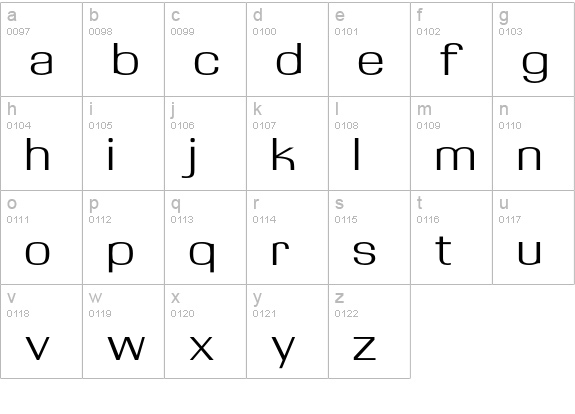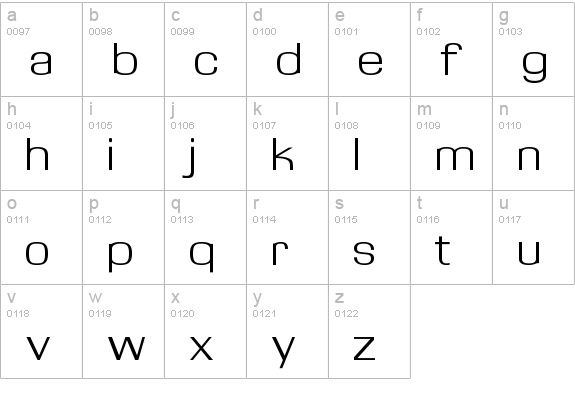
KasseFLF Font Details
Introducing KasseFLF, a stunningly versatile font that effortlessly blends elegance with modernity. This typeface is the perfect choice for those seeking a font that exudes sophistication and style. With its refined lines and graceful curves, KasseFLF adds a touch of class to any design project. What sets KasseFLF apart is not only its timeless beauty, but also its accessibility. This font is freely available to download at FontsMarket.com, making it an invaluable asset for designers, creatives, and enthusiasts alike. Whether you're working on a logo, website, or print material, KasseFLF will elevate your design with its effortless charm. The carefully crafted letterforms of KasseFLF are designed to captivate and inspire. Its clean and crisp lines make it effortlessly legible, while its subtle details add a touch of sophistication. This font is perfect for both headlines and body text, making it a versatile choice for a wide range of projects. KasseFLF is a true work of art, meticulously created by a team of talented designers. Its attention to detail and commitment to quality are evident in every glyph, ensuring a seamless and visually pleasing reading experience. Whether used in branding, advertising, or editorial design, KasseFLF will make your message shine with its distinctive charm. With its generous selection of weights and styles, KasseFLF offers endless design possibilities. From light and airy to bold and impactful, this font can adapt to any aesthetic. Its versatility allows you to create cohesive and visually stunning designs across different mediums and platforms. In conclusion, KasseFLF is a font that effortlessly combines timeless elegance with modern design sensibilities. Its accessibility and availability as a free download at FontsMarket.com make it a must-have for anyone looking to add a touch of sophistication to their designs. So why wait? Download KasseFLF today and unlock the potential to create truly remarkable and visually captivating designs.